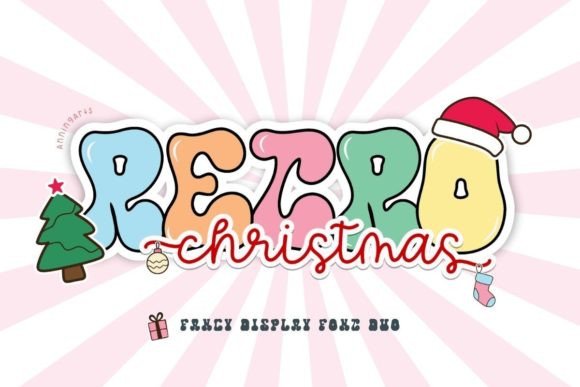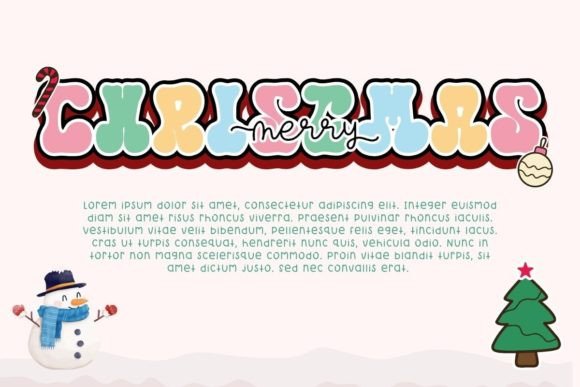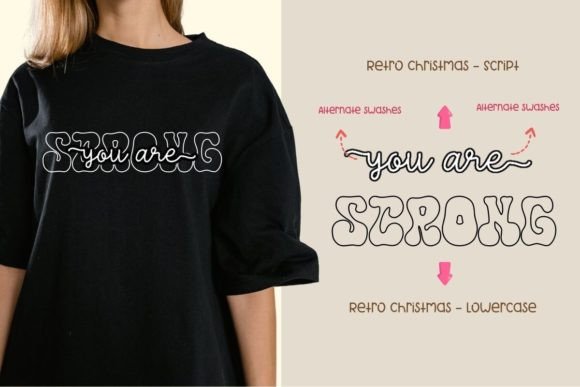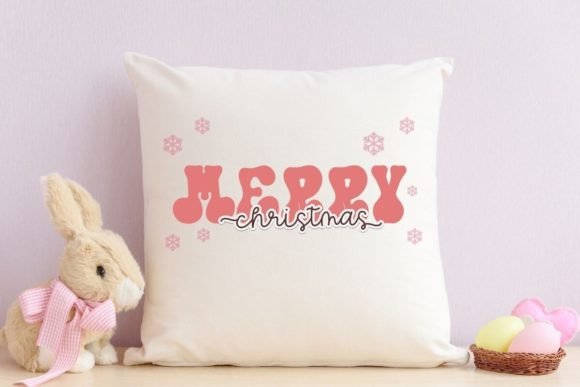
Retro Christmas Font: Groovy Vintage Font for Holiday Designs
About the Retro Christmas Font
Unleash your creativity with Retro Christmas Font, a versatile font perfect for a wide range of applications. Retro Christmas is a fancy display font duo. This set consists of a script font and a groovy display font, providing you with a wide range of unique and attention-grabbing design choices. You can utilize this pair of fonts to create various designs, including mugs, bags, shirts, pillows, and more.
Retro Christmas excels in headline applications, short slogans, and festive packaging designs. Its playful nature makes it ideal for branding projects targeting a younger demographic or companies with a whimsical, retro-inspired aesthetic. It is not suitable for body text or UI elements due to its decorative style, which can hinder readability in large blocks of text.
This font duo’s strong personality pairs well with clean sans-serif fonts like Open Sans for a balanced contrast, or a more geometric sans-serif such as Futura for a modern twist. For a touch of elegance, consider pairing the script with a classic serif like Garamond. Avoid pairing it with other highly decorative fonts, as this can create visual clutter.
The overall personality is fun, nostalgic, and celebratory. It evokes a sense of vintage charm and holiday cheer, making it a strong choice for projects that aim to capture that specific mood.
Retro Christmas Font Usage Examples
Retro Christmas Font Example